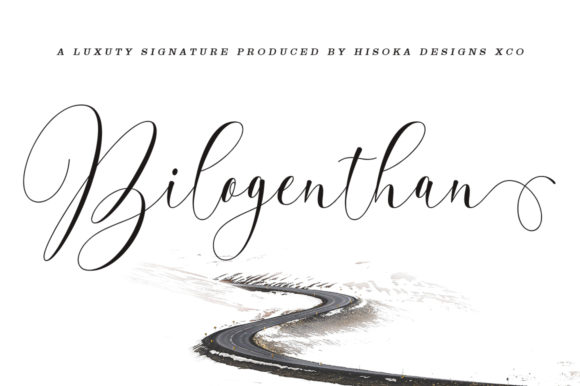
The Elegant Charm of Bilogenthan Font: A Designer’s Delight
I’ll never forget the moment I stumbled upon the Bilogenthan font while working on a branding project for a luxury skincare client. I had tried countless fonts, but none seemed to capture the essence of elegance and sophistication I was looking for. That was until I laid eyes on Bilogenthan – its delicate, flowing script instantly elevated my design and exceeded my client’s expectations. In this article, I’ll share my experience with this beautiful font, its features, and how to make the most of it in your designs.
An Honest Review of Bilogenthan Font
- ✨ Delicate and elegant handwritten style
- ✅ Well-balanced characters that match a wide range of designs
- 💫 Varying baseline and smooth lines for a natural look
- 🎨 Gorgeous glyphs and stunning alternates for added creativity
While Bilogenthan is an exceptional font, there are a few things to keep in mind:
- 🤔 Limited use of uppercase letters, but the font’s elegance shines in lowercase
The Story Behind Bilogenthan Font
Bilogenthan font was crafted with love and attention to detail by a talented type designer. Inspired by the beauty of handwritten scripts, the designer aimed to create a font that would bring elegance and sophistication to any design project. Through careful consideration of character balance, line flow, and glyph details, Bilogenthan was born – a font that has captured the hearts of designers worldwide.
Q: What makes Bilogenthan font so special?
A: Bilogenthan’s unique blend of elegance, delicacy, and flowing script makes it perfect for designs that require a touch of sophistication.